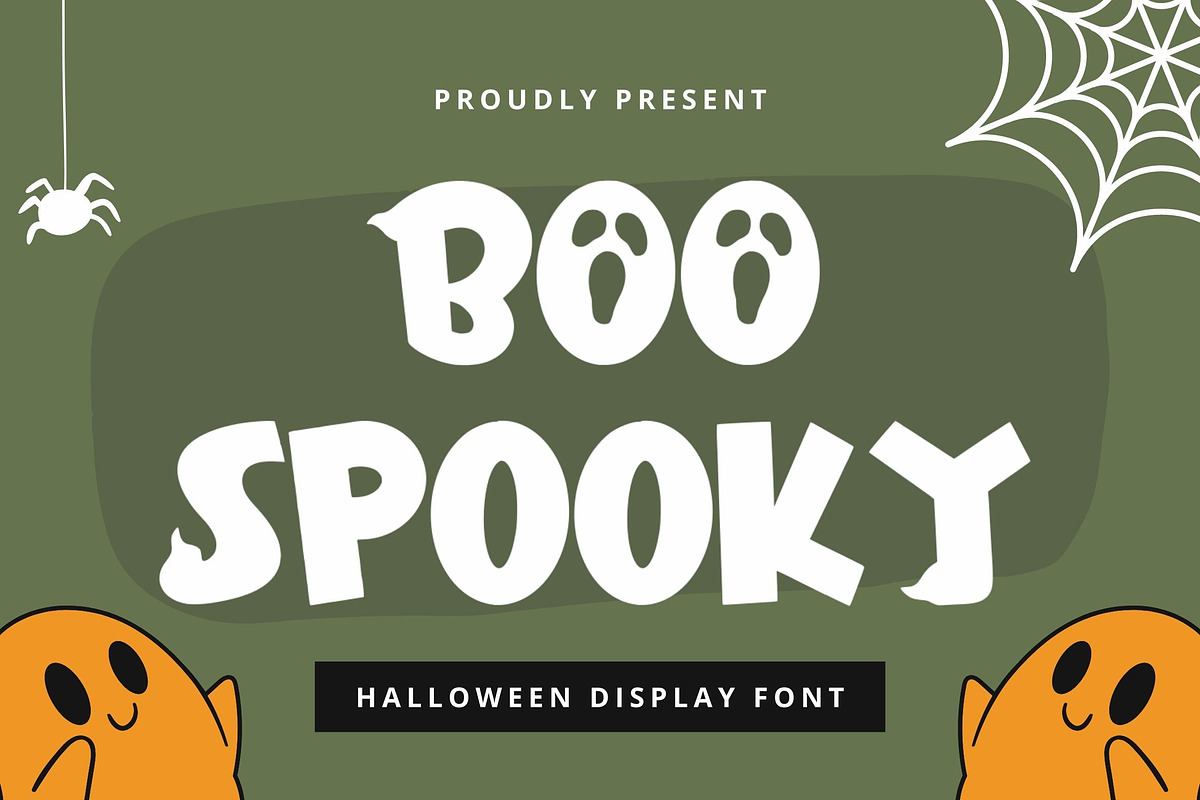
BooSpooky – Halloween Display Font Free Download is a fun and fright-filled typeface made just for spooky season! With quirky, jagged letterforms and a playful haunted vibe, this font is perfect for Halloween party invitations, trick-or-treat signage, themed merchandise, social media posts, and anything that needs a spooky twist.
BooSpooky – Halloween Display Font Free Download combines creepy and cute with just the right amount of whimsy—making it ideal for both kid-friendly and eerie designs. Whether you're crafting festive decorations or launching a seasonal promo, this font will set the perfect tone.
Great for both print and digital use, BooSpooky brings the spirit of Halloween alive in every letter. Feel free to try it out in personal mockups, but don’t forget—a commercial license is required for any professional use. Make your Halloween designs scream with style using BooSpooky!